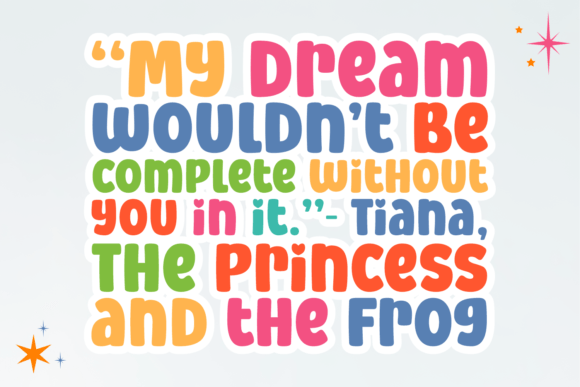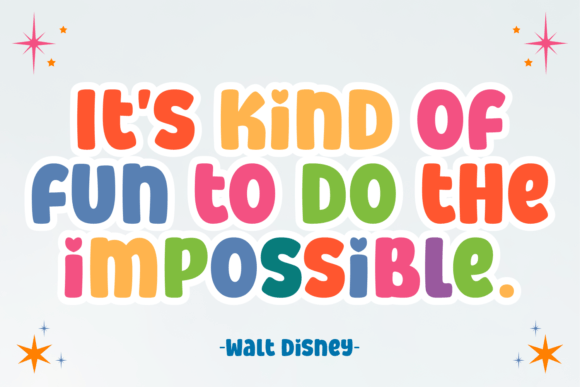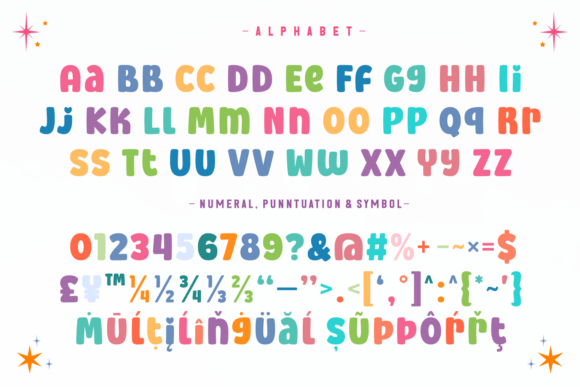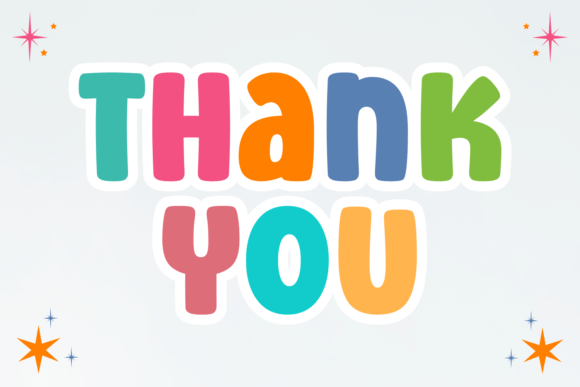
The Magic of Beauty Disney Font
Have you ever found yourself brainstorming ideas for a children’s book or a fun project, only to be stuck on the perfect font to match the playful vibe? I know I have! Sometimes, all it takes is one glance at a font to spark a creative idea. For me, that font is Beauty Disney. Its bold and cheerful design is like a breath of fresh air, instantly transporting me to a world of imagination and wonder.
Beauty Disney Font is a delightful typography that’s perfect for kids’ projects, games, or anything that needs a magical and lively touch. Its thick letters and whimsical design make it a great choice for designers looking to add a dash of fun and personality to their work. Whether you’re creating a logo, a poster, or a digital illustration, Beauty Disney Font is sure to bring a smile to your face and a touch of magic to your design.
With its unique blend of playfulness and sophistication, Beauty Disney Font is a valuable addition to any designer’s toolkit. Its versatility makes it perfect for a wide range of projects, from children’s books to advertising campaigns. So why not give it a try and see the magic of Beauty Disney Font for yourself?
Beauty Disney Font Key Features
- Unique Characteristics: Beauty Disney Font features a unique, whimsical design inspired by Disney’s classic fairy tale characters, adding a touch of magic to any design project.
- Legibility: The font is designed to be highly legible, making it easy to read in both digital and print formats.
- Style Options: Beauty Disney Font comes in multiple styles, including Regular, Italic, Bold, and Bold Italic, providing users with a range of options to suit their design needs.
Beauty Disney Font Review
Overall, I think the Beauty Disney Font is a fun and whimsical choice for any design project. ✨ It’s perfect for those looking to add a touch of magic to their branding or marketing materials.
- Unique and distinctive design that stands out from more common fonts
- Playful and elegant feel that’s perfect for children’s brands or family-friendly businesses
- Well-suited for headings and titles, adding a touch of whimsy to your design
However, there are some limitations to consider. ⚠️
- May not be suitable for more formal or professional projects, as it can come across as too playful
- Some characters may not be as smooth or polished as others, which can affect readability
- May not be as versatile as other fonts, with limited font sizes and styles available
Overall, I think the Beauty Disney Font is a great choice for the right project. While it may not be perfect for every design task, it’s sure to add a touch of magic to your work. ✨ Just be sure to consider its limitations and use it thoughtfully to get the best results.
The Beauty Disney Font is ideal for:
Children’s party invitations and decorations
Branding and marketing materials for family-friendly businesses
Personal projects and creative expressions